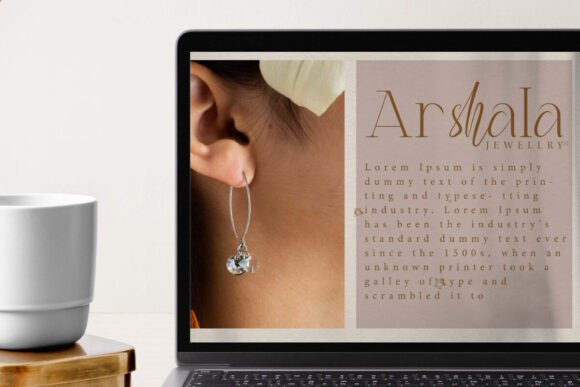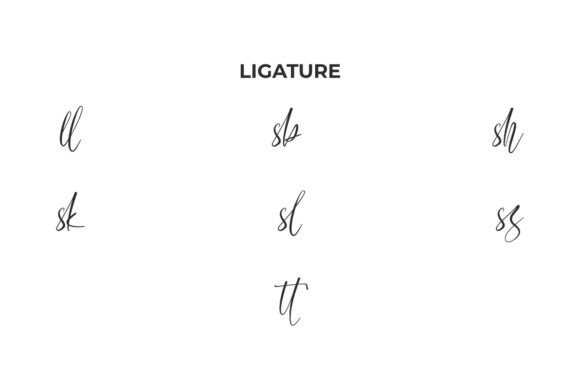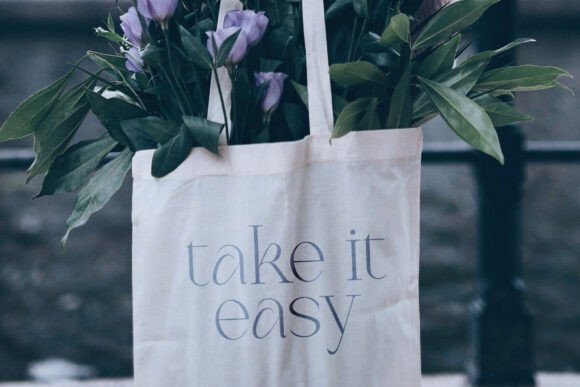
Introduction to Shine Valley Font
As you’re browsing through your design resources, have you ever stumbled upon that perfect font that elevates your entire creative project? For me, that moment happened when I discovered the enchanting Shine Valley Font. Its luxurious and feminine energy instantly caught my attention, and I knew I had to share it with fellow designers.
With its unique blend of two styles, Shine Valley Font is a game-changer for any design project. Whether you’re working on a brand image, product packaging, or magazine cover, this high-quality font is sure to make your design stand out. And the best part? It’s available for a free download, making it a valuable resource for designers of all levels.
Key Features of Shine Valley Font
- Unique, hand-crafted design for a creative project, perfect for a design resource.
- Features a transparent background, allowing for seamless integration with any design.
- Includes a range of characters, including uppercase and lowercase letters, numbers, and punctuation.
- High-resolution design, suitable for use in print and digital applications.
- Perfect for designers and artists looking for a unique, high-quality font for their next creative project.
Honest Review: Shine Valley Font
I recently had the opportunity to work with the Shine Valley Font, and I must say it’s been a game-changer for my design projects. ✨ The font is incredibly versatile and adds a touch of sophistication to any creative project.
The Shine Valley Font is available for free download, which is a major plus for designers on a budget. The font’s high quality is evident in its crisp lines and smooth curves, making it perfect for a wide range of applications.
Some of the key features that I love about the Shine Valley Font include:
- Transparent background: This allows for seamless integration with images and other design elements.
- High-quality design: The font’s clean and modern design makes it perfect for use in a variety of creative projects.
- Limited character set: The font may not include all of the characters you need for certain languages or projects.
- Not ideal for small text: The font’s size and weight may make it difficult to read in small text sizes.
Overall, I’m thoroughly impressed with the Shine Valley Font. Its high quality and versatility make it an excellent resource for designers. While there are a few limitations, I believe the benefits far outweigh the drawbacks. ⚠️
Use the Shine Valley Font with a transparent background to create a clean and modern design. Experiment with different font sizes and styles to add visual interest to your project.
The Shine Valley Font is ideal for creating logos, social media graphics, and presentations. It’s also perfect for designing business cards, brochures, and flyers.